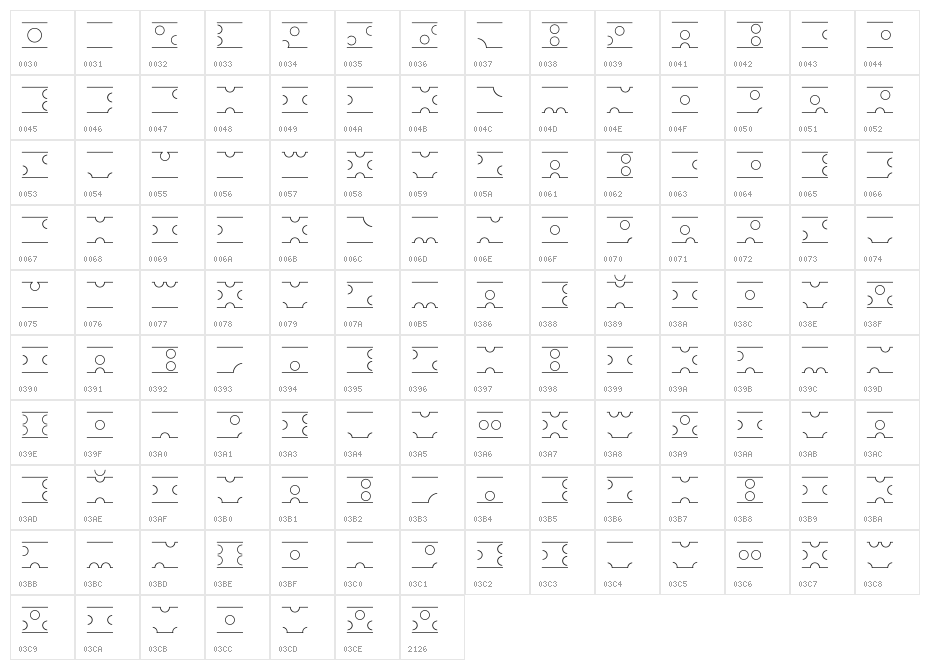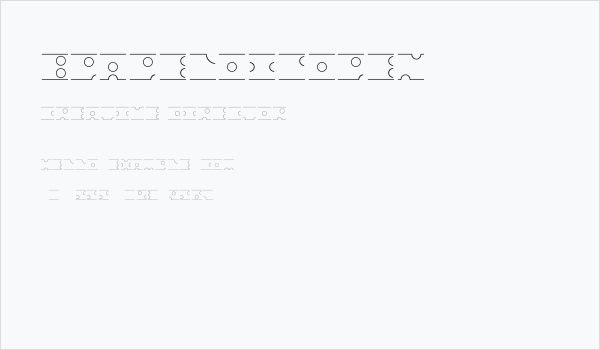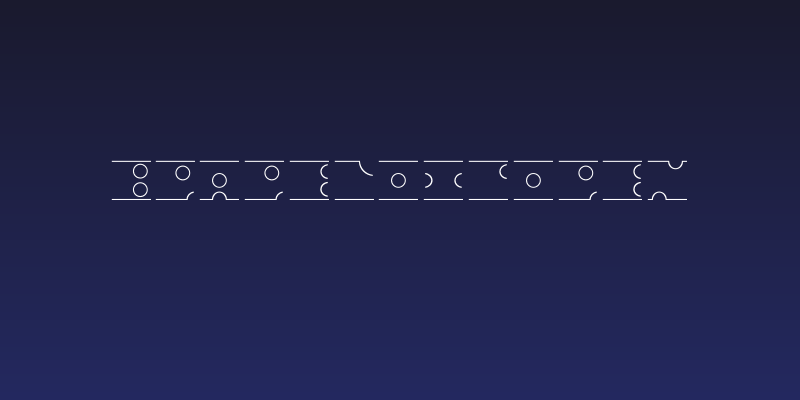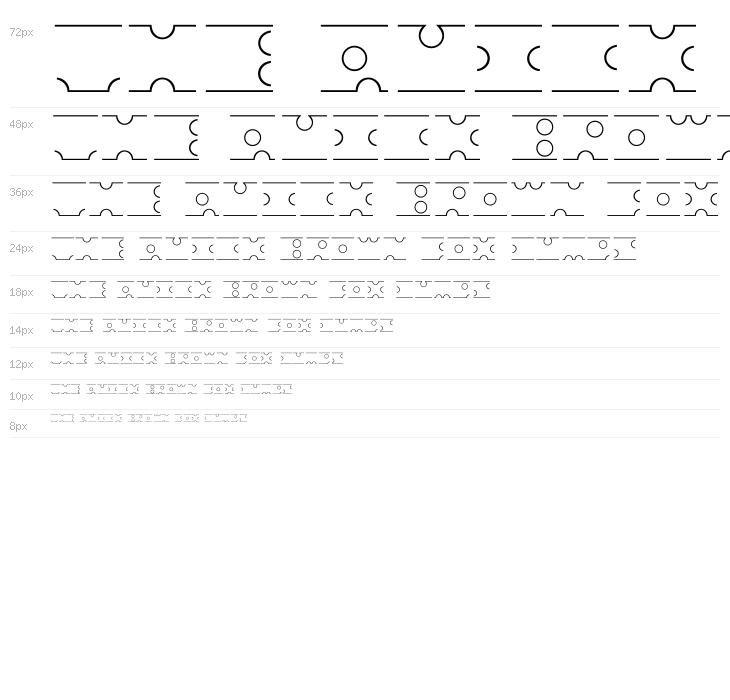
BPapeloigOpen Font
BPapeloigOpen Description
This design features a series of lines and circles arranged in a pattern that resembles a musical score or a coded language. The elements are evenly spaced, creating a rhythmic and structured appearance. The circles vary in size, adding a dynamic element to the otherwise linear composition. The lines are consistent in thickness, providing a uniform look across the design. This pattern could be interpreted as a form of abstract art or a symbolic representation of information.
| Use Case | Art installations, Graphic design, Digital interfaces |
| Proposed Projects | This design could be used for modern art installations, abstract wallpapers, or as a unique element in graphic design projects. It might also serve as inspiration for creating coded messages or as a decorative motif in digital interfaces. |